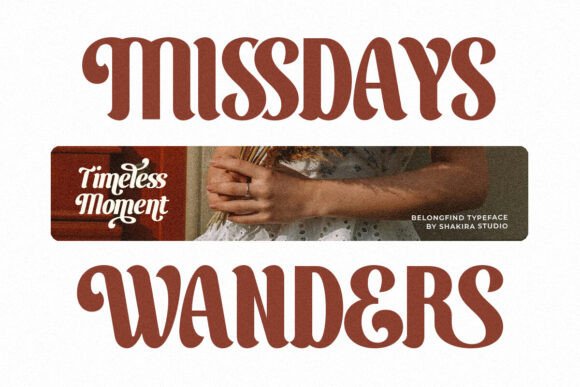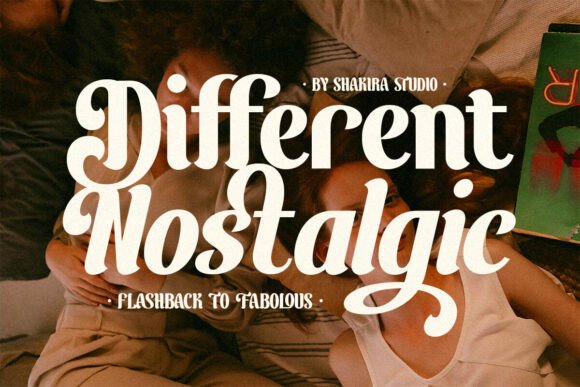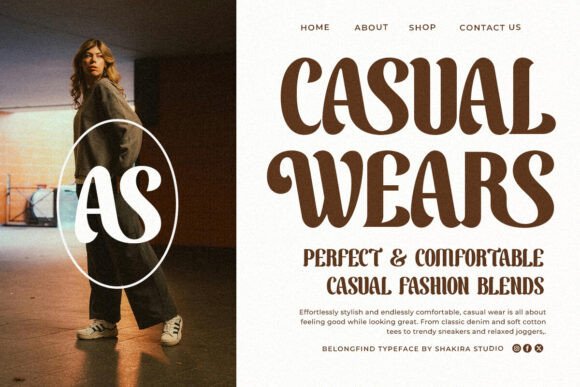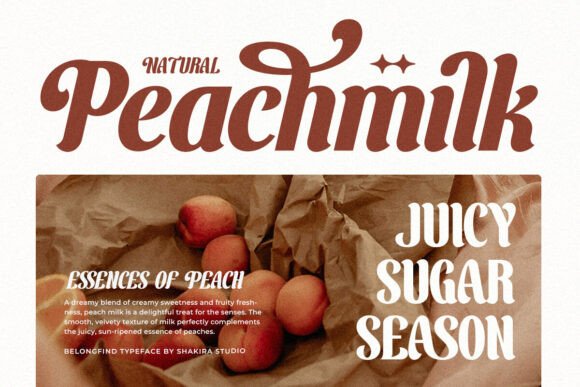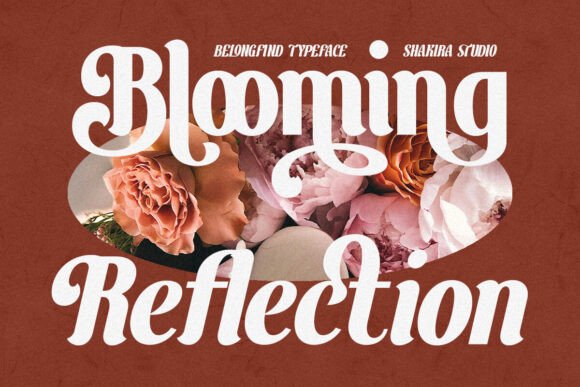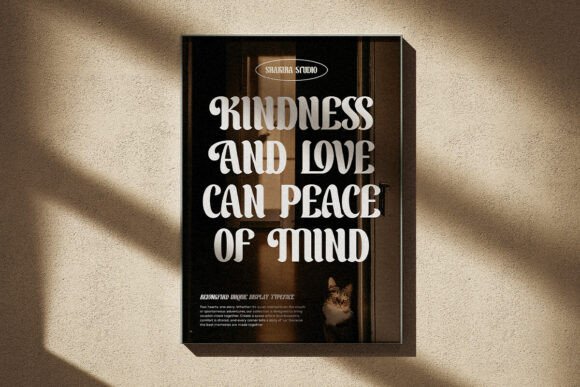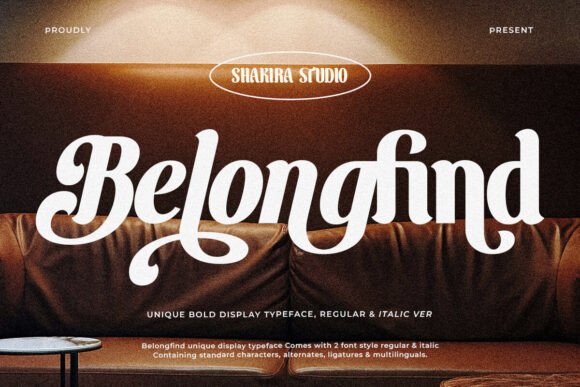
Ah, the eternal quest for the perfect font. I still remember the countless hours I spent scrolling through font libraries, searching for that one special typeface that would bring my design project to life. My client was a luxury fashion brand, and they wanted a font that exuded elegance and sophistication. I tried font after font, but nothing seemed quite right. That was until I stumbled upon Belong Find.
As soon as I saw Belong Find, I knew I had found what I was looking for. This bold and unique display serif font had everything I needed: character, elegance, and a touch of modernity. In this article, I’ll share my experience with Belong Find, and show you how to make the most of this stunning typeface.
An Honest Review of Belong Find
• ✨ Unique character: Belong Find has a distinct personality that sets it apart from other serif fonts.
• ✅ Elegant and sophisticated: This font is perfect for luxury branding, high-end editorial, and fashion projects.
• 💡 Flexible: With alternates and ligatures, Belong Find offers a range of typography styles to suit your design needs.
• 📦 Timeless yet modern: This font is perfect for creating designs that are both classic and contemporary.
While Belong Find is an exceptional font, there are a few things to keep in mind:
• 🤔 Limited use cases: Due to its bold and elegant nature, Belong Find works best in specific design contexts, such as luxury branding, high-end editorial, and fashion projects.
• ⚠️ Requires attention to spacing: As with any bold font, it’s essential to pay attention to spacing to ensure that your design doesn’t feel cluttered.
The Story Behind Belong Find
Belong Find was designed by a team of typographers who wanted to create a font that would bring character and elegance to design projects. Inspired by classic serif fonts, they added a modern twist to create a unique and sophisticated typeface. The result is a font that’s both timeless and modern, perfect for luxury branding, high-end editorial, and fashion projects.
Author Shakira Studio
Q: What is Belong Find?
A: Belong Find is a bold and unique display serif font designed to bring character and elegance to design projects.
Q: What design projects is Belong Find suitable for?
A: Belong Find is perfect for luxury branding, high-end editorial, fashion projects, and packaging design.
Q: Does Belong Find come with OpenType features?
A: Yes, Belong Find features alternates and ligatures, making it a versatile font for creating distinctive typography styles.